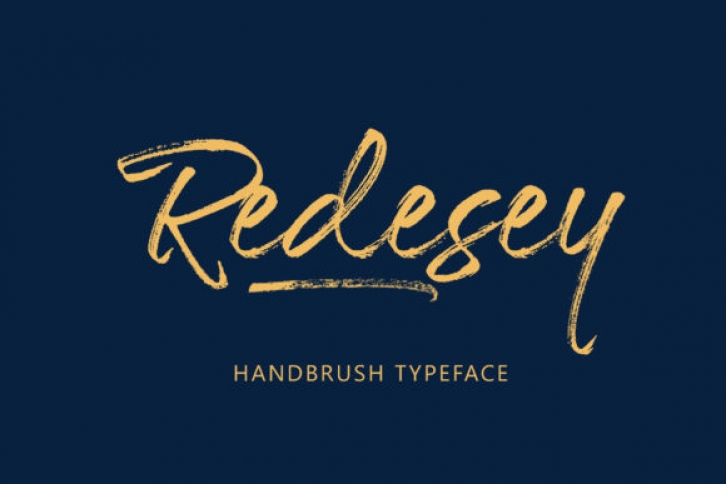
Redesey is an exquisite handwritten font, created with the help of an outstanding brush pen. This font is PUA encoded which means you can access all of the glyphs and swashes with ease! It features a varying baseline, smooth lines, gorgeous glyphs and stunning alternates.
Fall in love with its incredibly versatile style and use it to create spectacular designs!